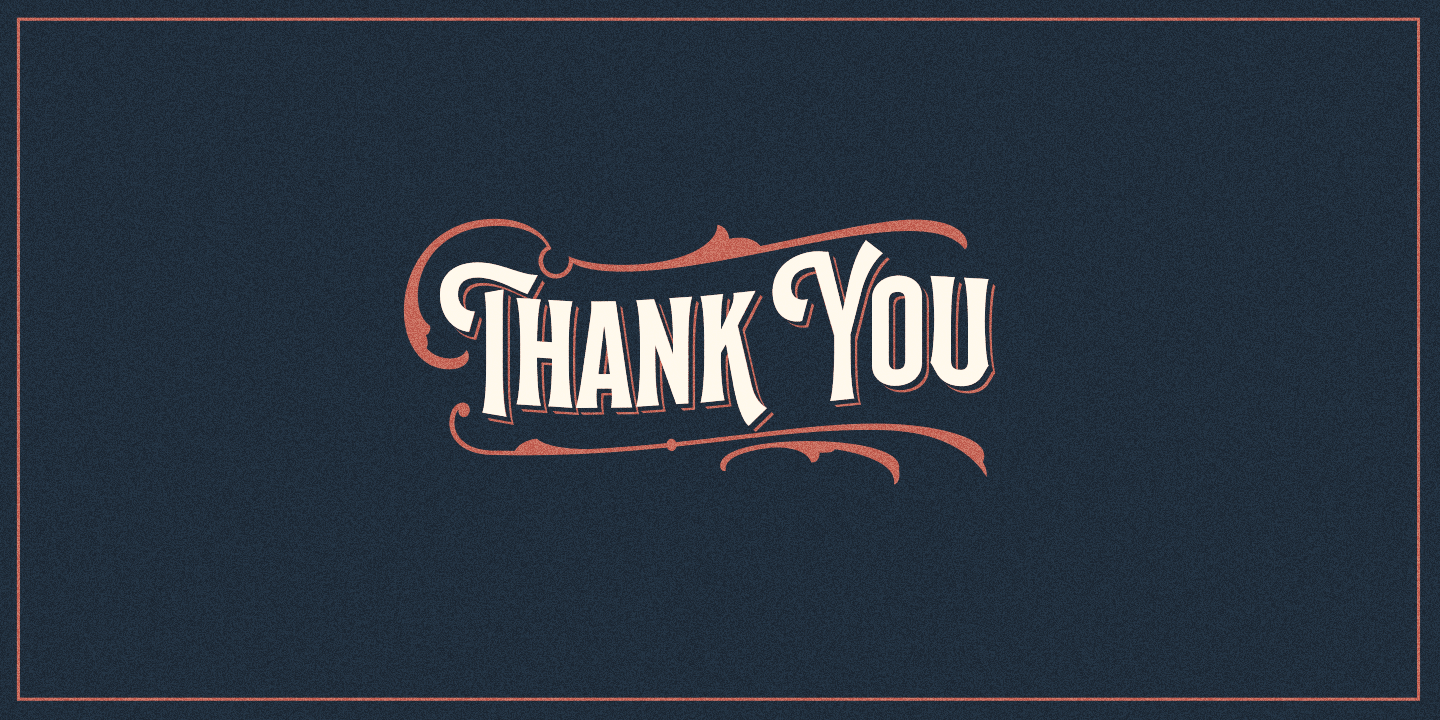
Bilcase Font is perfect for professional business communications, corporate identity systems, executive presentation materials, financial services branding, legal documentation, formal consulting materials, institutional communications, and authoritative business designs. This distinguished typeface excels in applications requiring professional credibility and business excellence that establishes trusted market presence across diverse corporate environments and formal communication channels.
What makes Bilcase Font exciting is its commanding professional presence that instantly conveys business authority and institutional credibility through precisely structured letterforms. The font features robust character construction with authoritative styling and confident proportions that create immediate trust and professional recognition perfect for organizations requiring respected market positioning and established business excellence in competitive corporate environments.
The Bilcase Font family includes comprehensive professional weights and formal variations with business-focused elements, offering designers complete tools for creating authoritative corporate communications. The family provides consistent professional aesthetic with strategic hierarchy options for effective business branding and formal documentation requiring genuine corporate character and institutional authority appeal.
Bilcase Font Free Download represents an outstanding choice for organizations seeking typography that embodies professional excellence and corporate authority. Whether you're developing business identity systems, executive communications, financial service materials, or institutional marketing campaigns, this font provides the authoritative character needed for serious business applications and trusted professional brand positioning.
The masterfully engineered letterforms of Bilcase Font ensure optimal performance across all corporate applications while maximizing professional authority and business credibility, making it ideal for corporate presentations, formal documentation, and executive communications. This versatile typeface combines business excellence with contemporary technical standards for outstanding performance in professional environments requiring maximum corporate credibility and distinguished institutional presence.